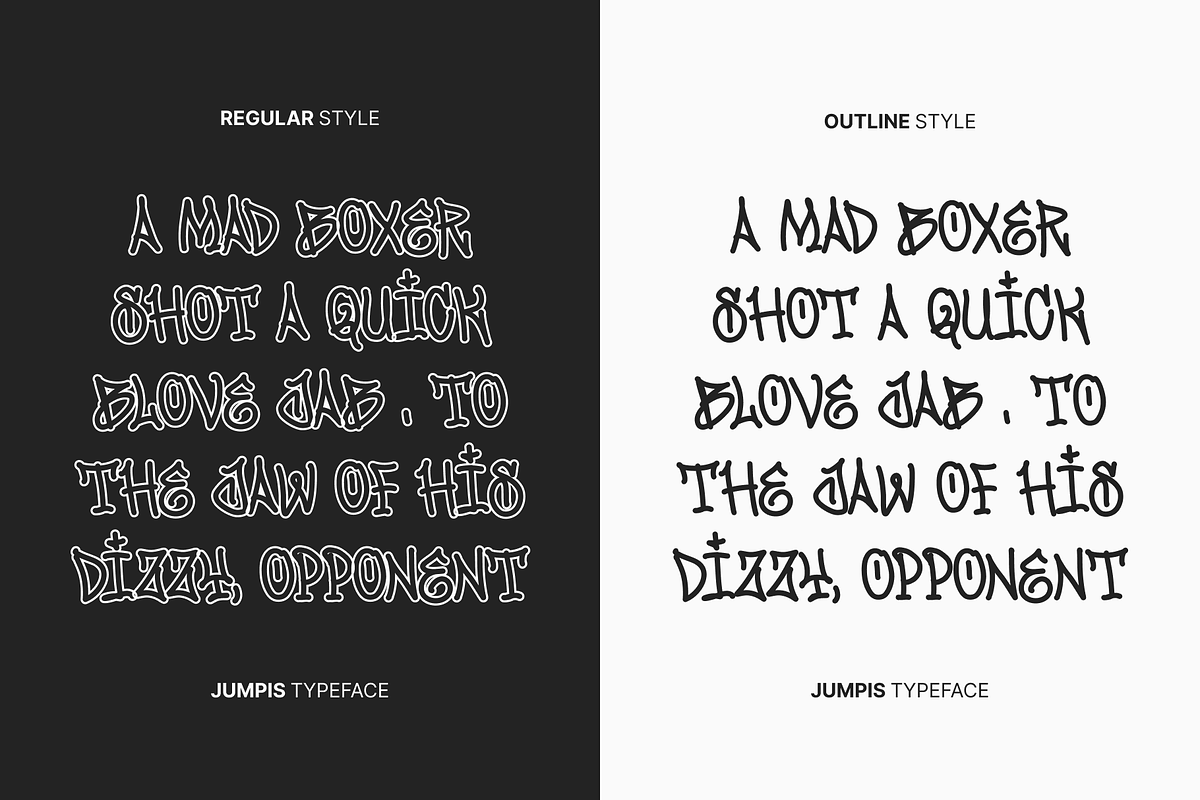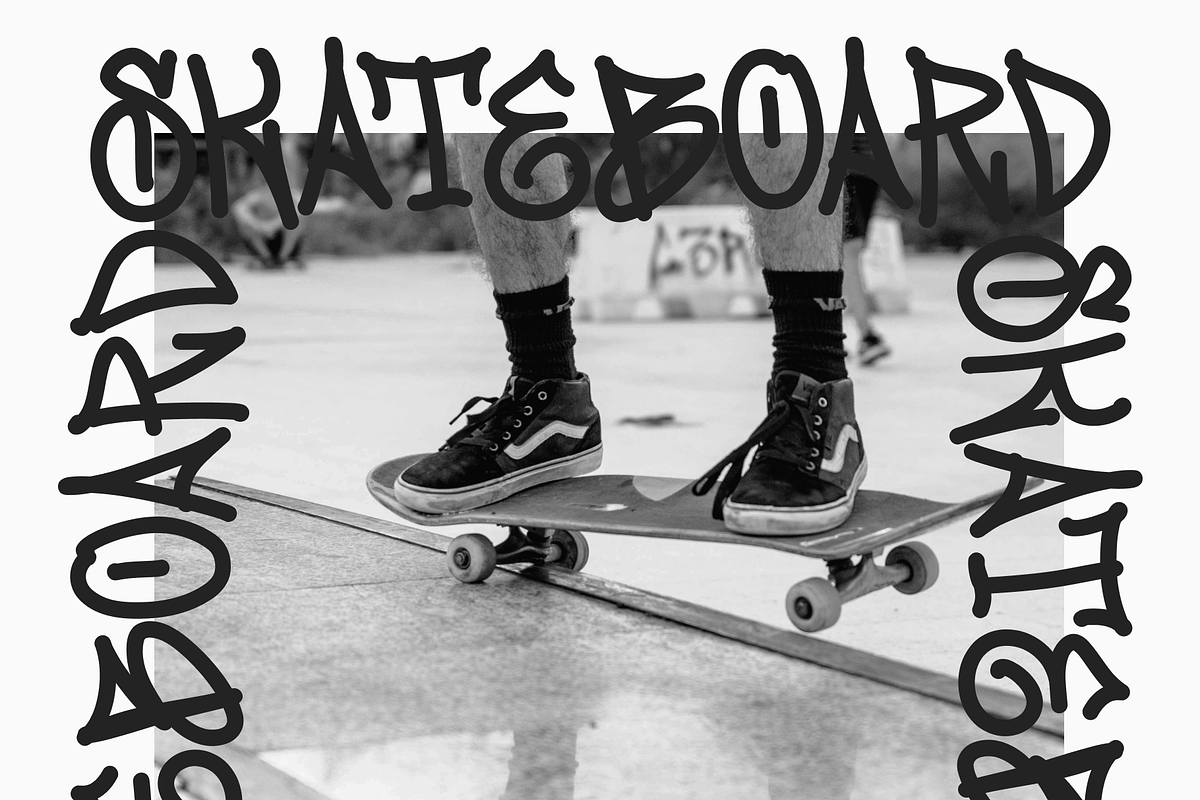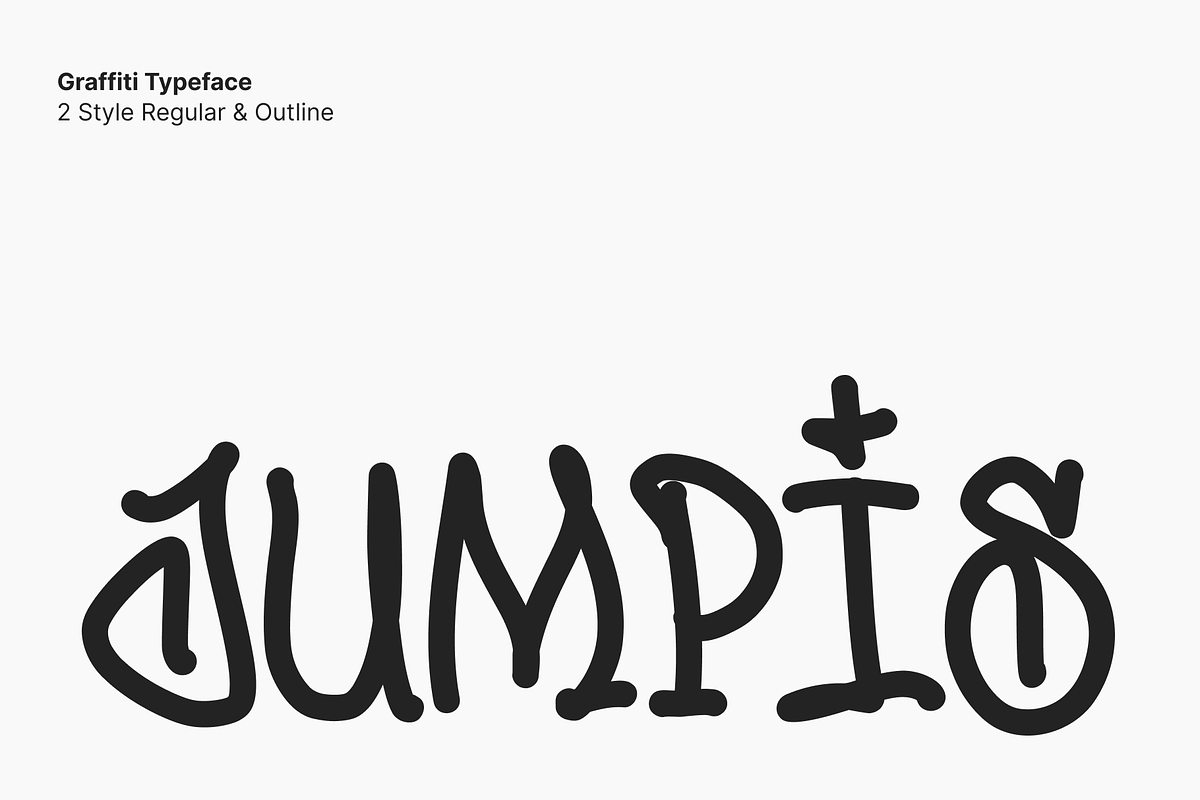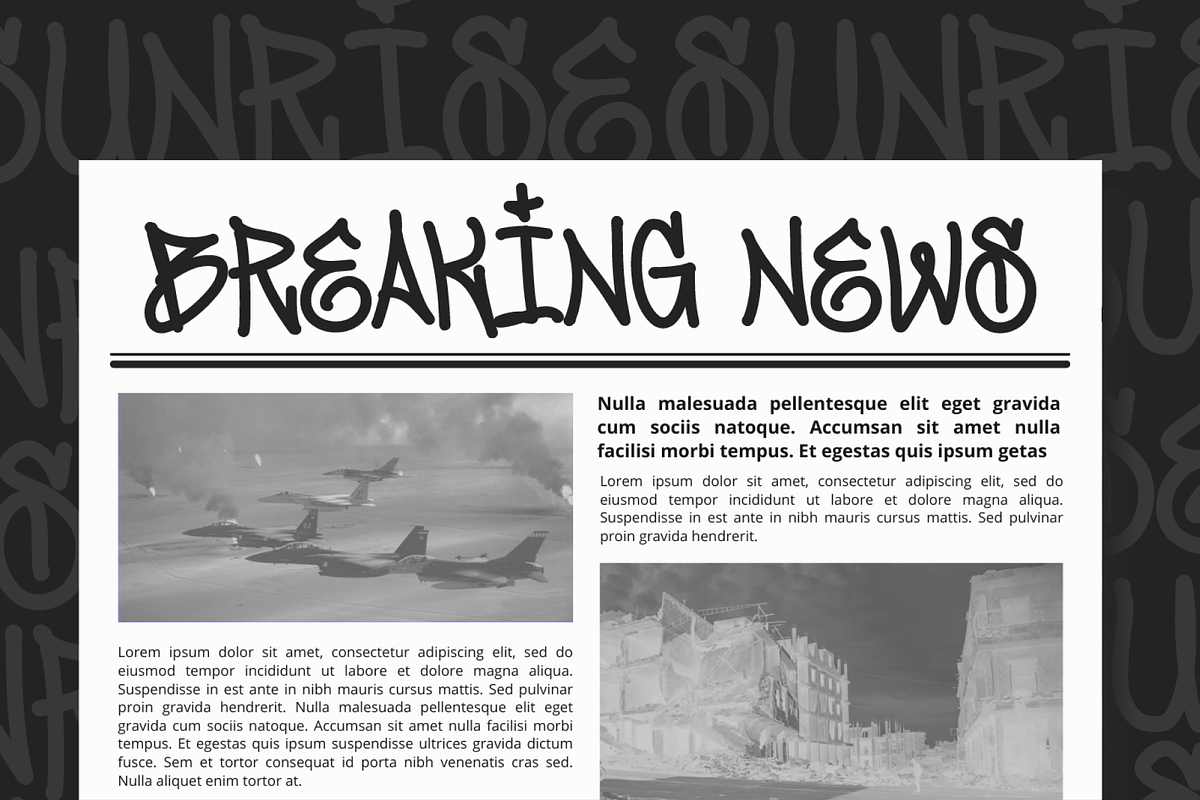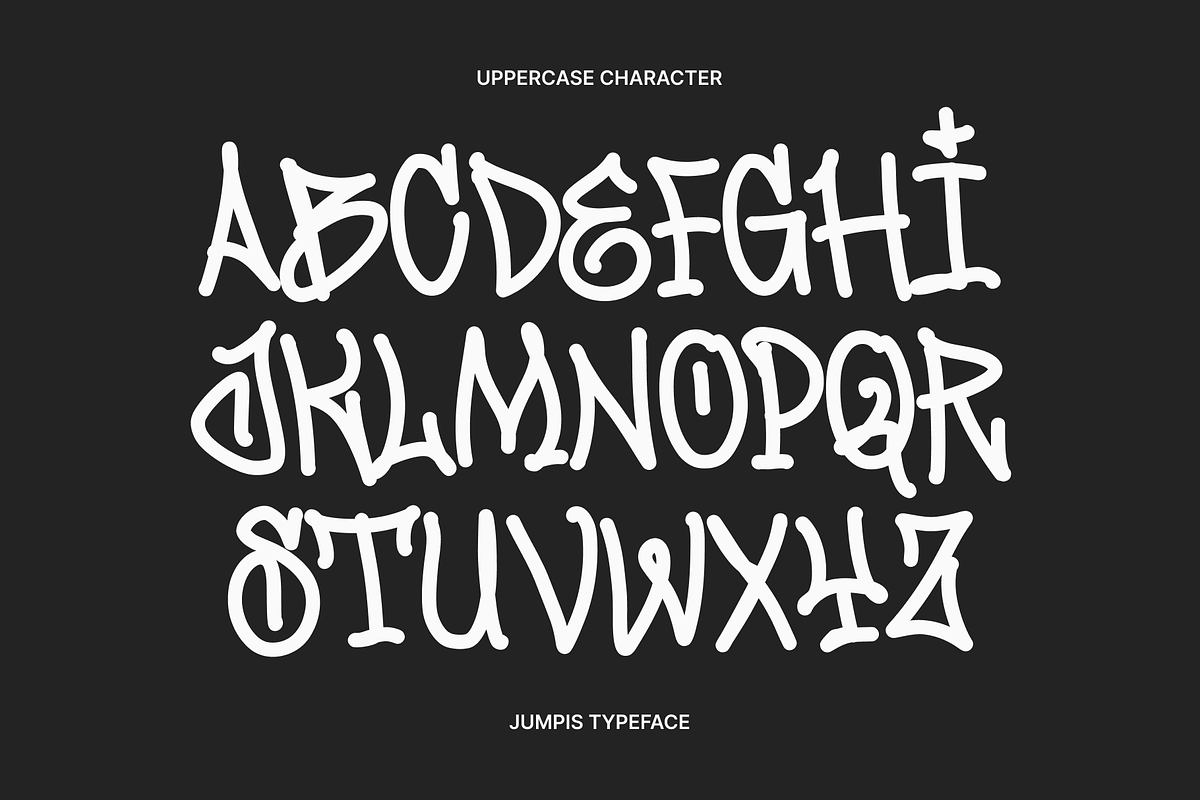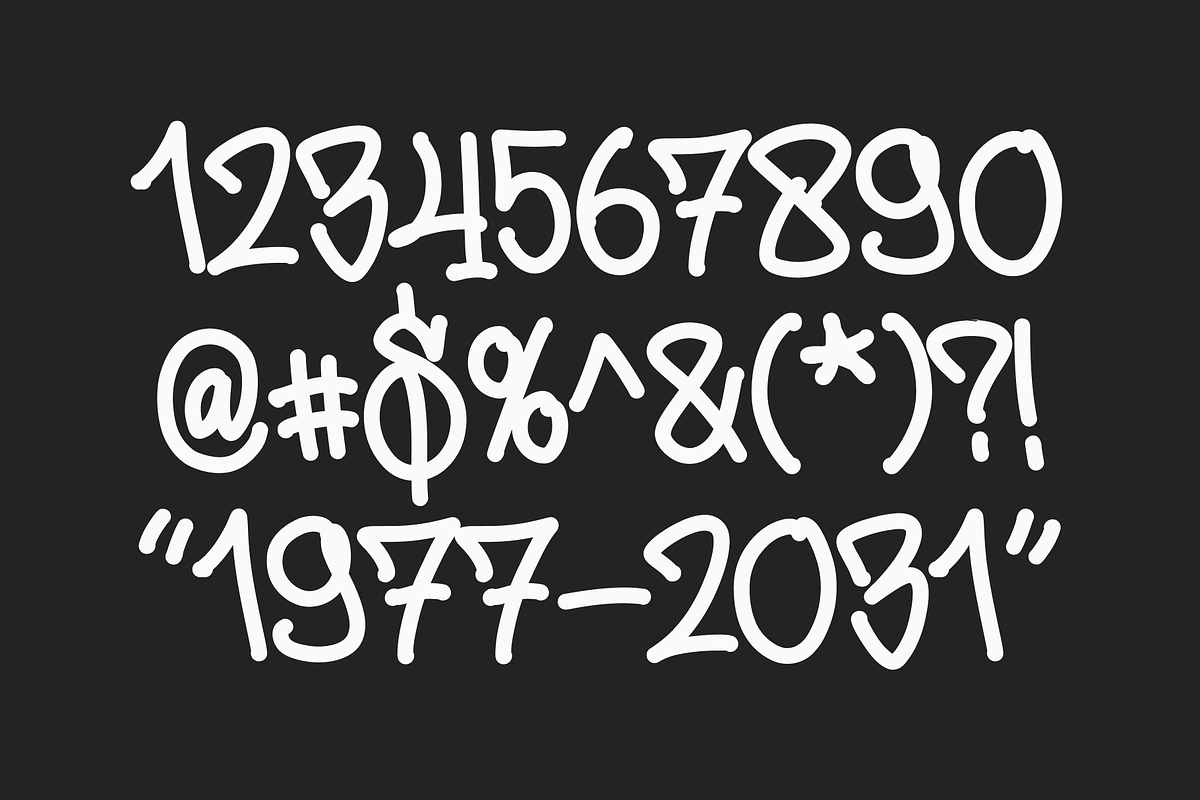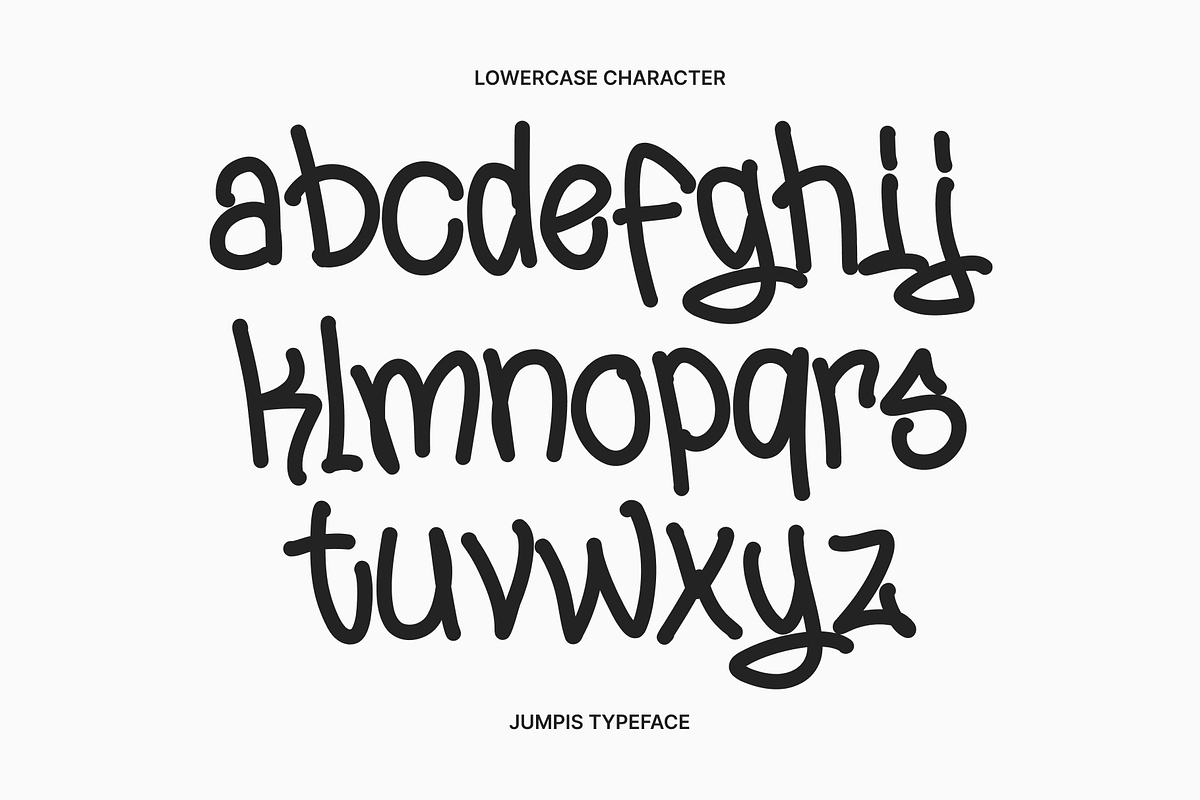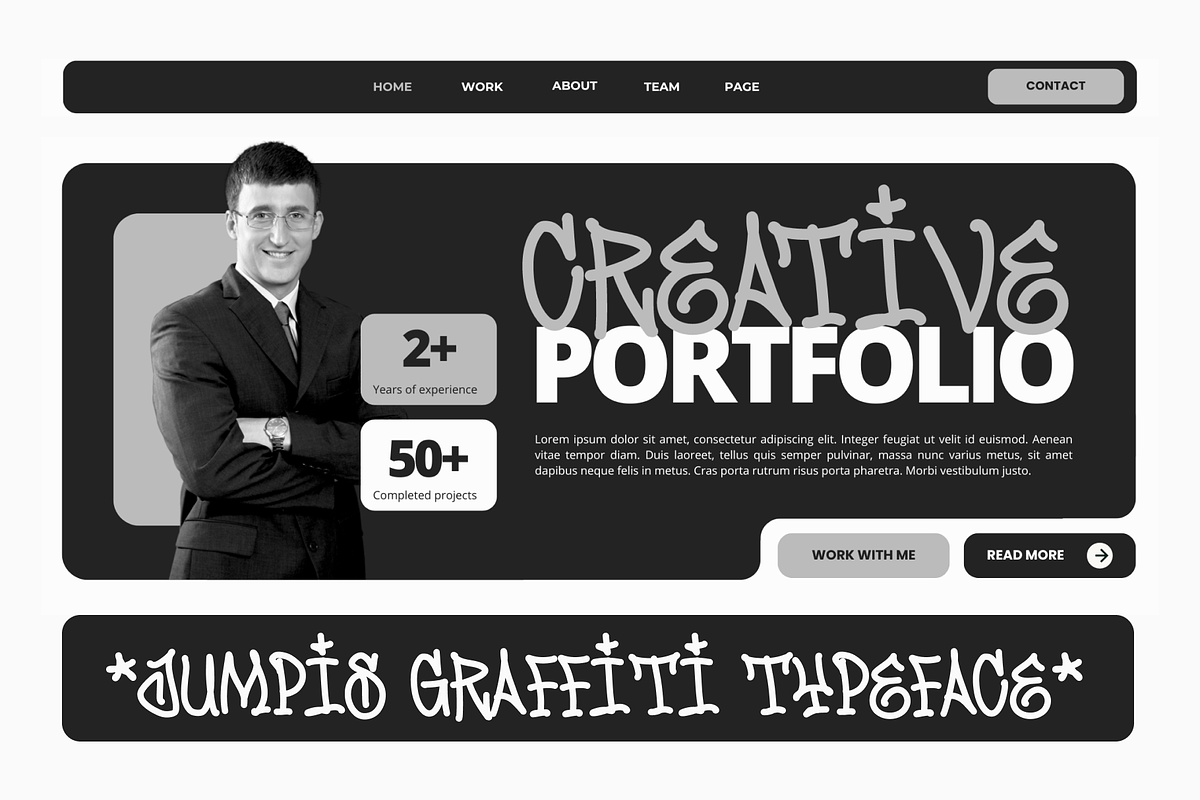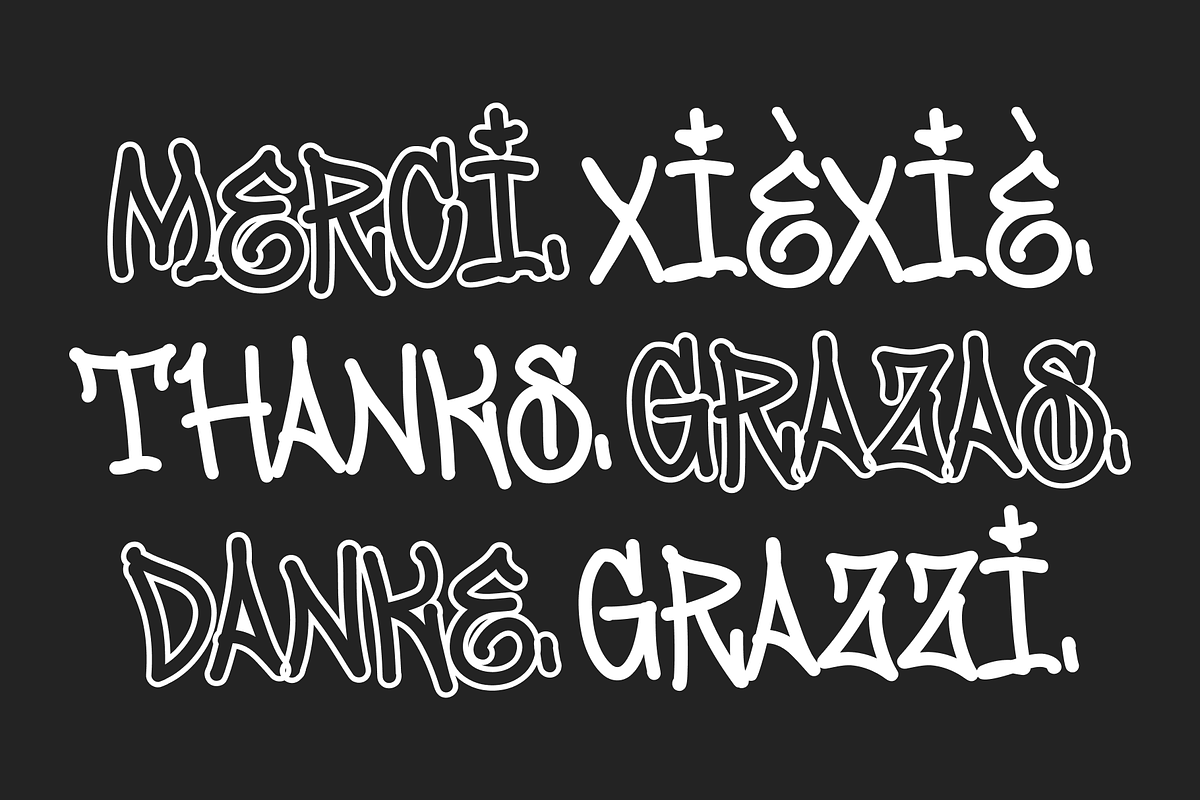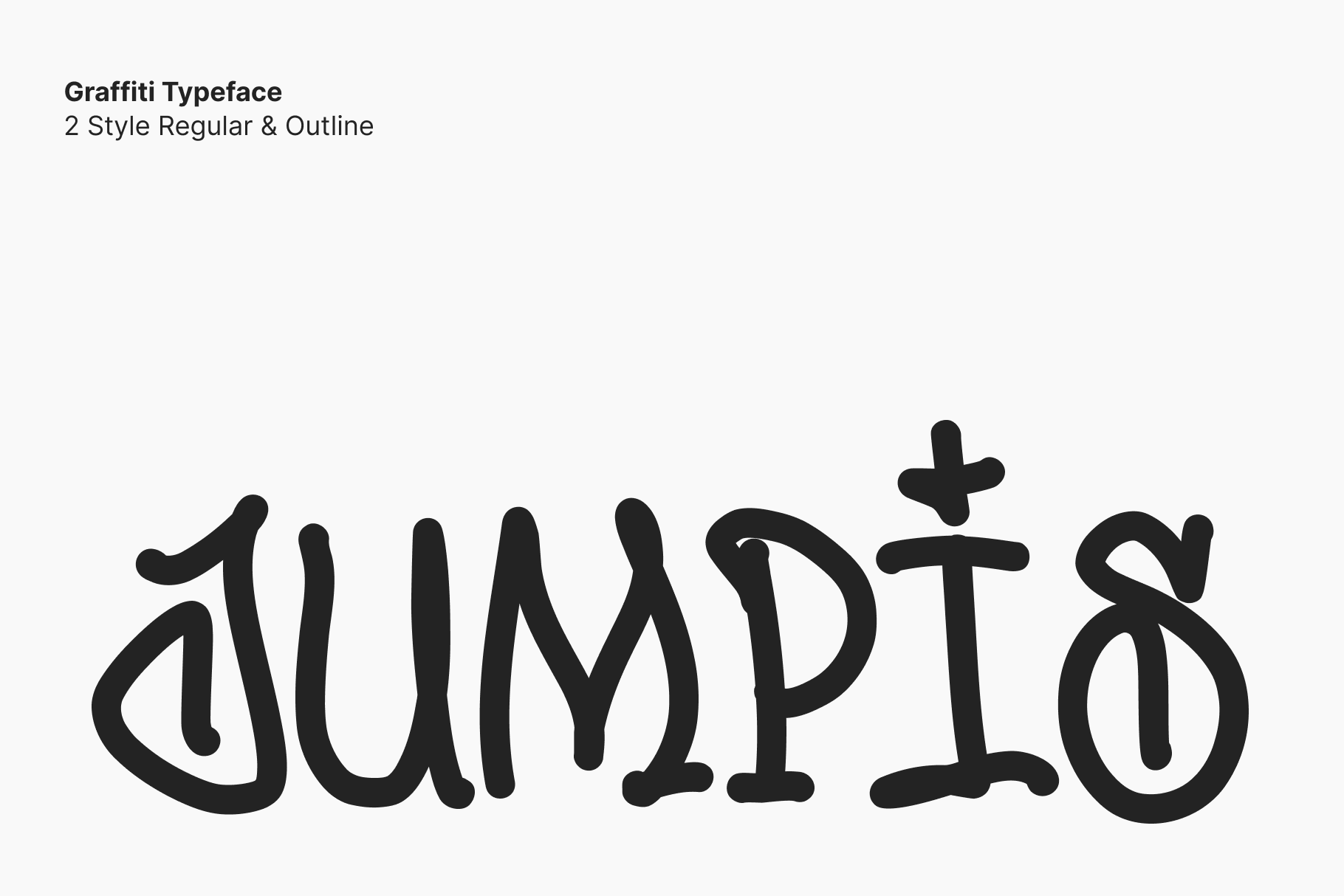
Jumpis Graffiti Typeface
Introducing Jumpis, a fresh and revolutionary typeface that masterfully captures the essence of tag graffiti style. This unique font comes to you in both Regular and Outline styles, drawing its inspiration from the raw simplicity of street art tags. Jumpis beautifully comes to life when displayed in larger formats, making it a perfect fit for projects like posters, fanzines, stickers, and even apparel such as t-shirts. Not only is it versatile, but also thorough, supporting uppercase, lowercase, numerics, and punctuation, ensuring you have full creative control. Prepare to inject your designs with the boldness and edgy charm of Jumpis